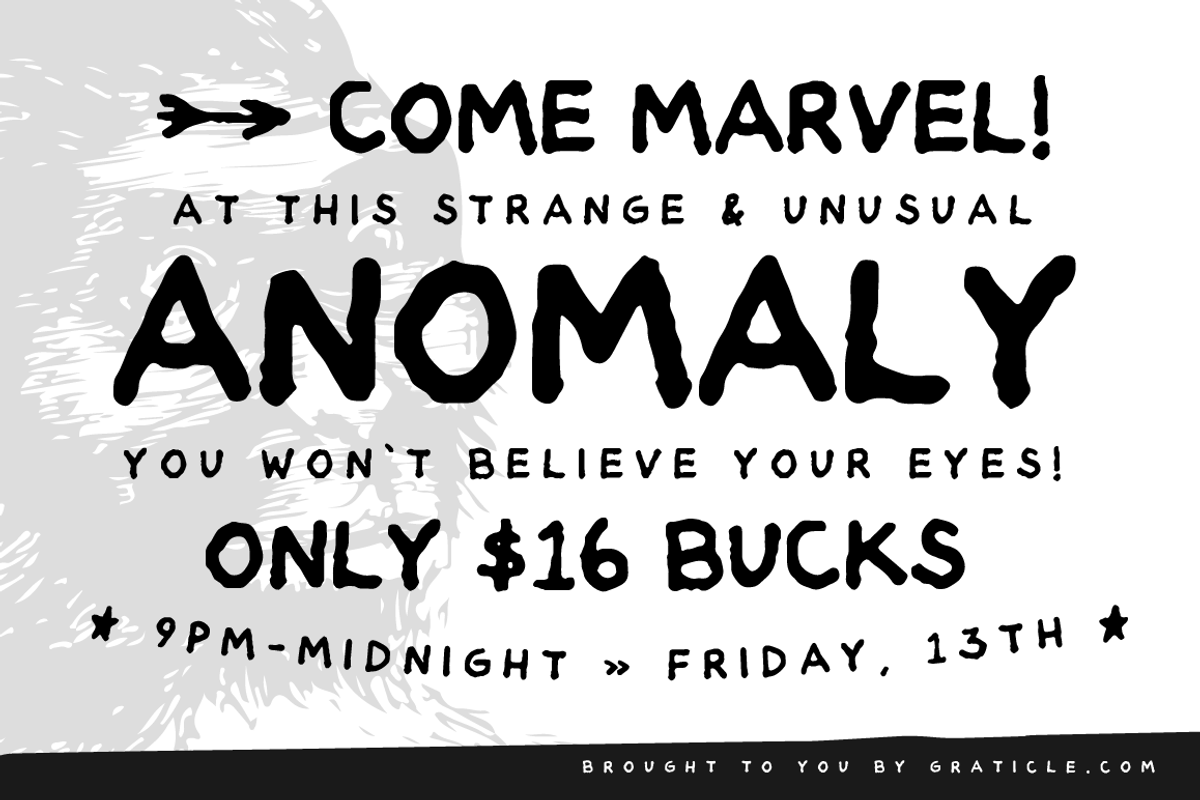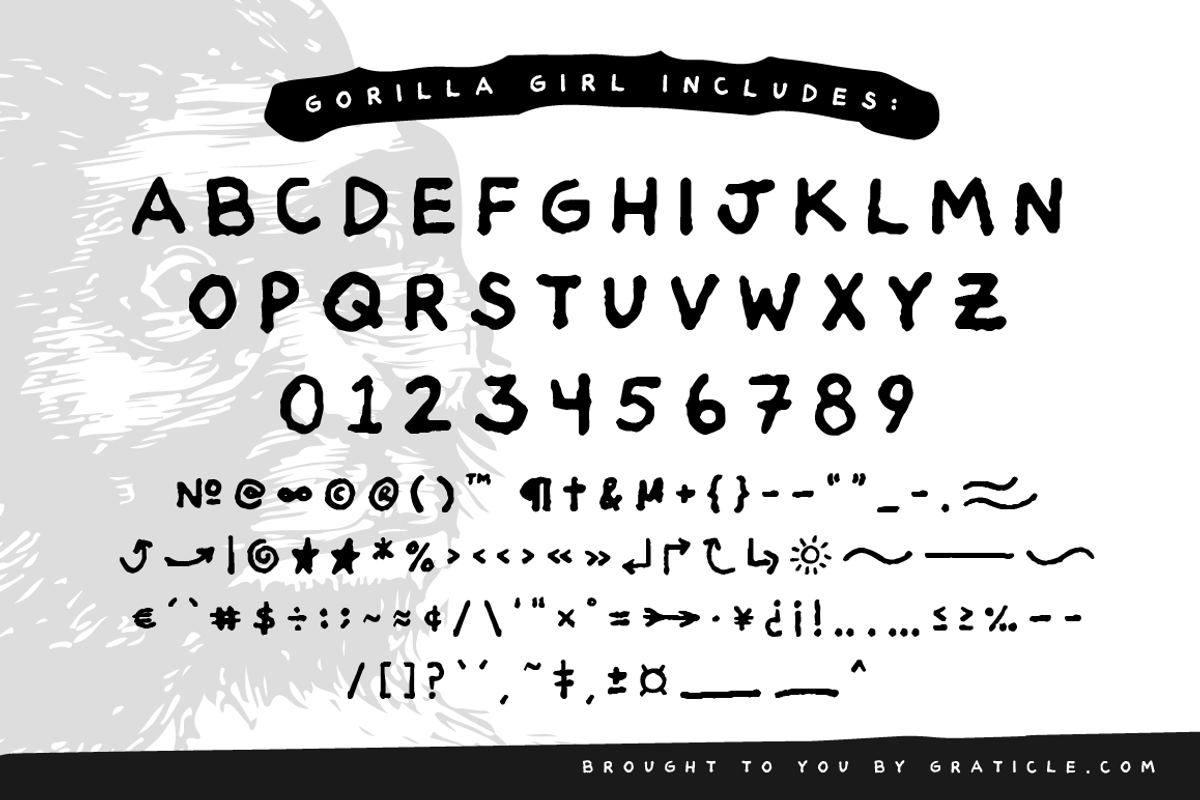
Gorilla Girl - Hand Drawn Font
Gorilla Girl - Hand Drawn Font by Graticle is a font selected for branding, posters, packaging, typography.
- Gorilla Girl comes with uppercase characters and a variety of symbols.
Why Gorilla Girl - Hand Drawn Font is worth a look
Gorilla Girl - Hand Drawn Font by Graticle fits naturally into Branding, posters, packaging, typography.